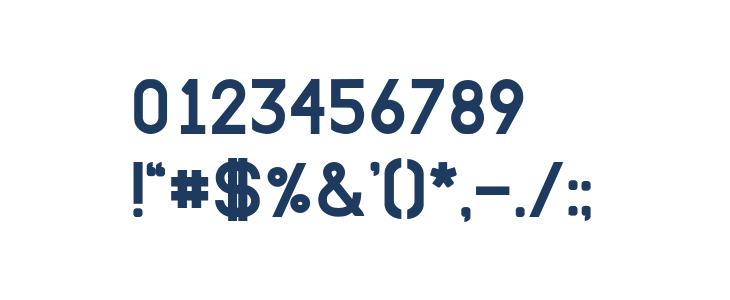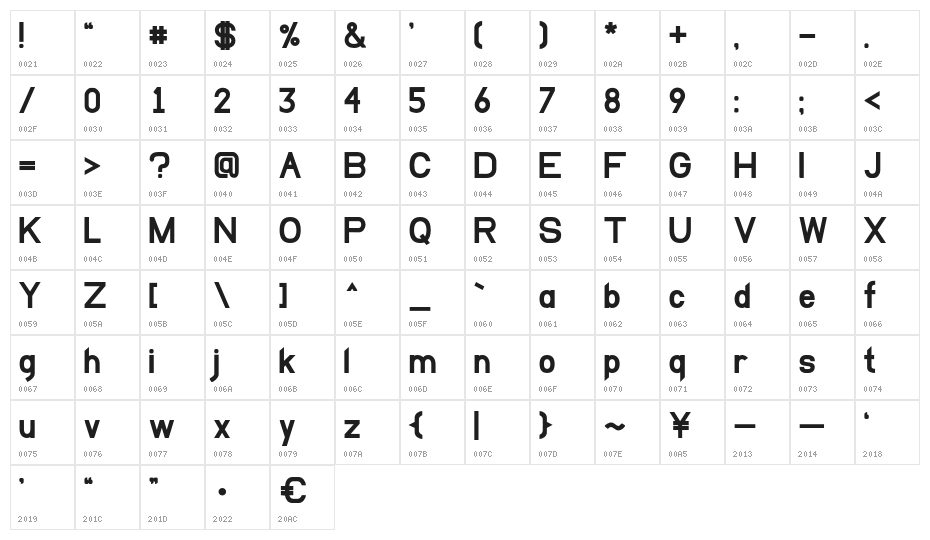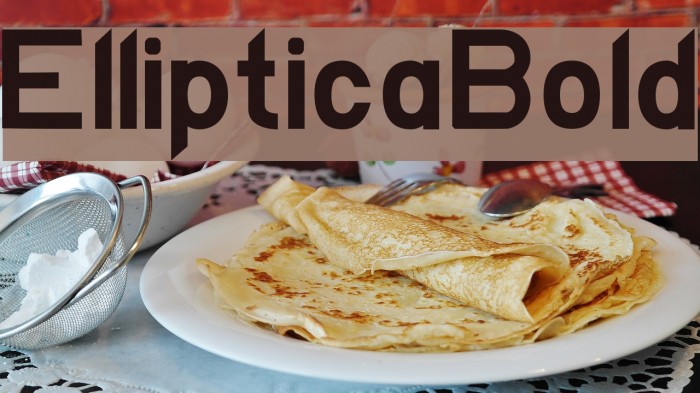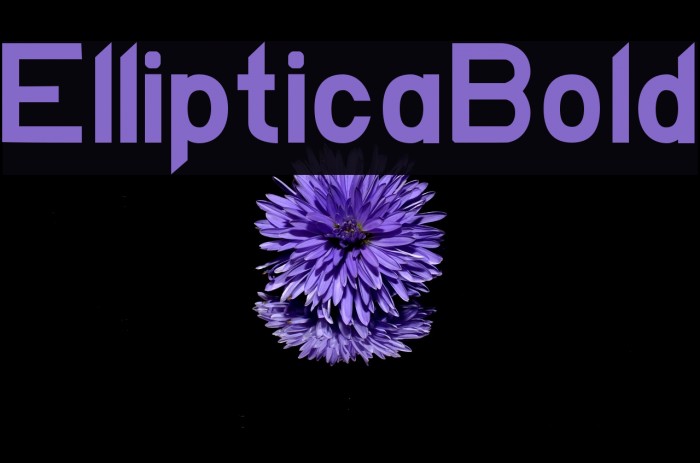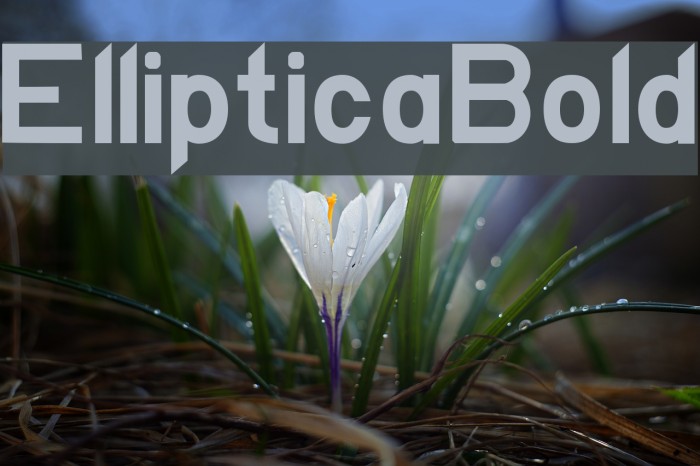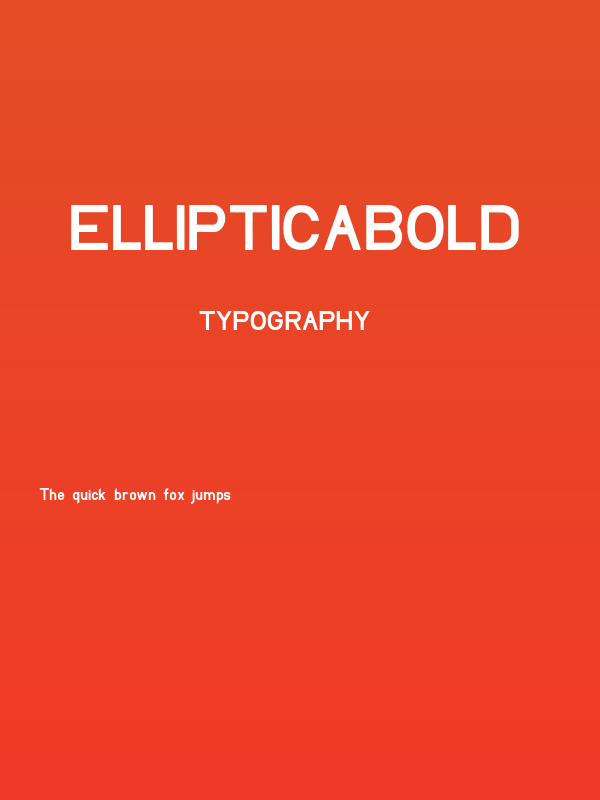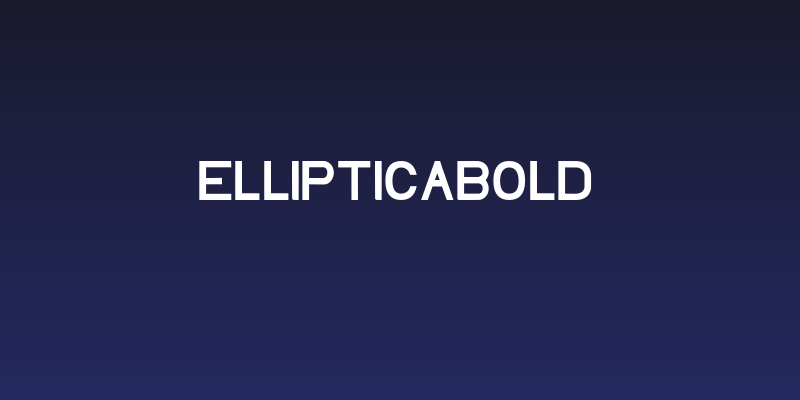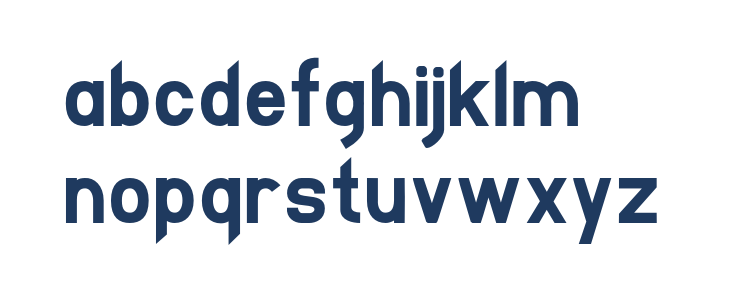
EllipticaBold Font
EllipticaBold Description
This font features a bold and modern sans-serif design with clean, geometric lines and a strong presence. The uppercase and lowercase letters are well-balanced, with consistent stroke widths that convey a sense of stability and confidence. The numerals are clear and easily distinguishable, making them suitable for a variety of applications. Special characters are included, maintaining the font's cohesive style. The overall appearance is sleek and professional, making it ideal for contemporary design projects.
| Proposed Projects | Ideal for branding, advertising, headlines, and digital media projects that require a modern and bold aesthetic. |